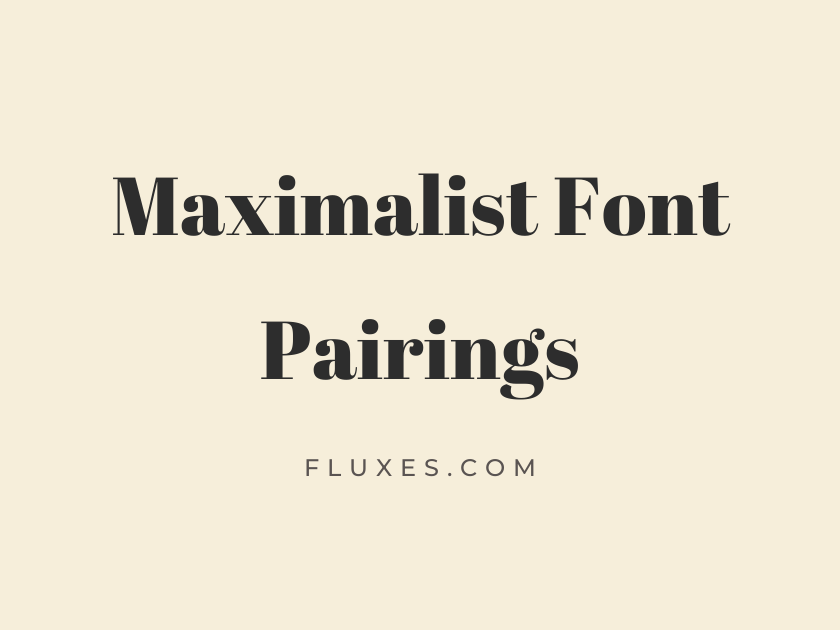
38 Maximalist Font Pairings
Maximalist design runs on abundance: saturated color, layered texture, and typography loud enough to hold its own against all of it. The font pairings that work best here rarely rely on subtlety; they lean on contrast, mixing a display face with real personality against a body font sturdy enough to stay legible once the page gets busy. These Google Fonts pairings cover the range of maximalist moods, from Victorian ornament to neon retro-futurism to brutalist digital branding, each chosen for a specific reason rather than sheer volume.
1. Abril Fatface + Vollkorn
Bold Ideas, Big Impact
This sturdy serif carries long passages of ornamental copy without losing its footing.
Abril Fatface pushes its stroke contrast to a poster-ready extreme, ideal for the oversized headline moment maximalist layouts crave. Vollkorn keeps a related traditional serif structure but at a workable text weight, giving pages full of pattern and color a legible anchor. This combination fits fashion editorials, wine labels, and other projects that want ornament without sacrificing readability.
2. Bungee + Karla
Street Style Loud
Karla holds its ground under bold signage-style headlines with a clean, unfussy structure.
Bungee borrows its chunky geometry from street signage and skate graphics, an obvious fit for maximalist branding that wants attitude. Karla’s grotesque simplicity gives the eye somewhere to rest between bursts of color and pattern. Use this pairing for streetwear packaging, festival merchandise, or any identity built from collage.
3. Monoton + Space Grotesk
Neon Nights Await
Space Grotesk carries technical, slightly quirky proportions that feel at home under a glowing headline.
Monoton’s looping neon-tube strokes only really work at large display sizes, so it needs a distinctive body font to keep the rest of the page from going flat. Space Grotesk’s engineered, slightly eccentric letterforms match that retro-futurist mood without competing with the headline’s spectacle. The combination suits music posters, arcade branding, and synthwave-inspired packaging.
4. Righteous + Nunito
Play Louder Than Ever
Nunito's rounded terminals keep long stretches of copy friendly even when the layout gets busy.
Righteous has a chunky, retro-geometric build that reads as confident rather than aggressive. Nunito shares that same rounded softness at body size, so the two fonts feel like they came from the same design conversation. Good for kids’ brands, snack packaging, and playful event collateral stacked with color.
5. Alfa Slab One + Merriweather
Heavy Type, Big Story
Merriweather was built for screens and long reading, giving dense pages a stable rhythm.
Alfa Slab One is about as heavy as a slab serif gets, weight enough to stand up to busy backgrounds and layered graphics. Merriweather’s generous x-height and sturdy serifs keep body copy legible under the same pressure. This pairing suits editorial features, craft beer labels, and other projects that want density with confidence.
6. Lobster + Josefin Sans
Retro Diner Charm
Josefin Sans adds a geometric, art-deco-adjacent lightness that keeps the page from feeling too sweet.
Lobster’s brush-inspired curves carry a nostalgic, mid-century script energy that can overwhelm a page if everything else matches its intensity. Josefin Sans steps back with narrow, geometric letterforms that let the script stay the star. Expect this pairing in retro cafe branding, dessert packaging, and vintage-inspired invitations.
7. Playfair Display + PT Serif
Elegance With Edge
PT Serif keeps its own humanist personality, avoiding a generic feel beneath a dramatic headline.
Playfair Display’s sharp, high-contrast curves give maximalist layouts a couture-level headline moment. PT Serif is sturdy enough to sit beneath it without turning invisible, its slightly wider proportions holding their own against ornate borders. This works well for fashion lookbooks and boutique hotel branding that wants drama with texture.
8. Bungee Shade + Rubik
Extra Dimension Added
Rubik's slightly rounded corners echo the playful, blocky feel of the display font above it.
Bungee Shade adds a built-in drop shadow, giving headlines a layered, three-dimensional look before any other design element is added. Rubik matches that same geometric, toy-like personality at readable sizes. Use this combination for youth brands, event signage, or packaging that wants texture without extra production work.
9. Yeseva One + Lora
Ornament Meets Warmth
Lora's calligraphic roots give body copy a handwritten warmth that complements an ornate headline.
Yeseva One carries decorative flourishes reminiscent of hand-lettered signage, ideal for maximalist branding with an artisanal streak. Lora shares that calligraphic origin at a far more restrained scale, so the pair feels connected rather than mismatched. Good for bakery branding, boutique packaging, and wedding stationery with a maximalist edge.
Give every heavy or decorative display font a text partner with a taller x-height and simpler structure, so paragraphs stay legible under layers of color and pattern.
Limit an individual layout to two typefaces, even when everything else on the page is doing more than usual.
Let one font carry the ornamentation. If the display face is already decorative, keep the body font structural rather than decorative itself.
Test any pairing at the sizes it will actually be used at, since several of these display fonts only read as intended above a certain point size.